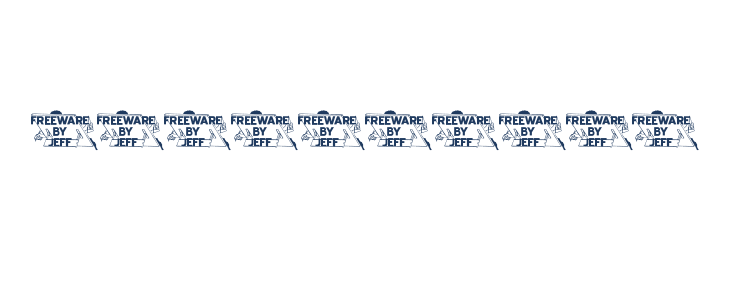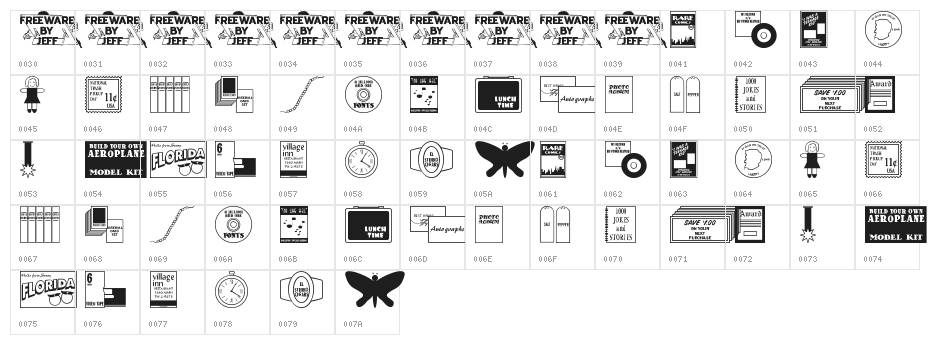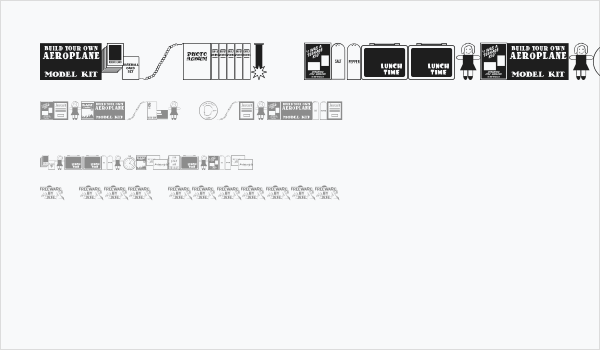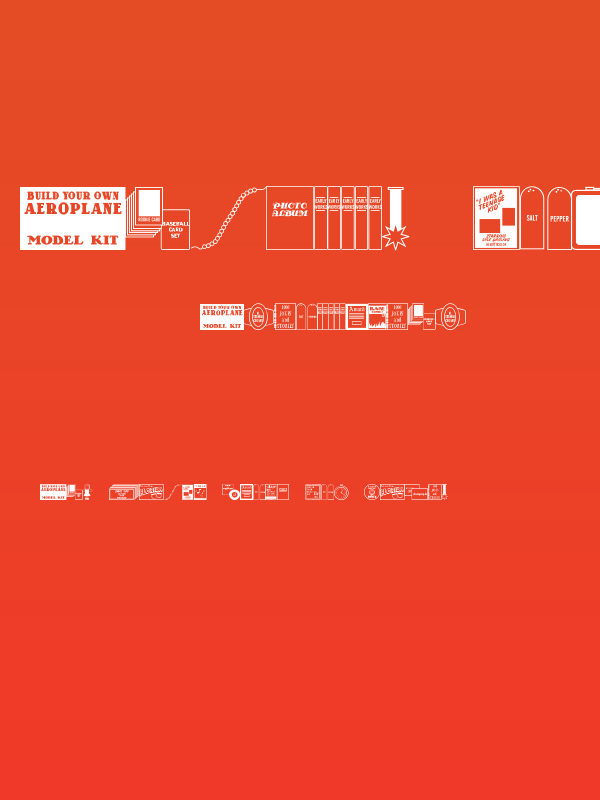
Things Collected JL Font
Things Collected JL Description
This font is a playful and eclectic collection of various graphic elements and text styles, reminiscent of vintage advertisements and packaging. It features a mix of bold, blocky letters, and intricate illustrations, creating a nostalgic and whimsical feel. The design includes elements like aeroplanes, records, and clocks, each with its own unique style, contributing to an overall collage-like appearance. The font is not uniform, with varying weights and styles, from bold and condensed to light and expanded, offering a diverse range of visual interest. The characters are tightly spaced, enhancing the compact and busy aesthetic. This font is ideal for creative projects that aim to evoke a sense of nostalgia or playfulness.
| Overall Style | Vintage, Whimsical |
| Use Case | Posters, Packaging, Branding |
| Proposed Projects | Ideal for retro-themed posters, creative packaging designs, and playful branding projects. |